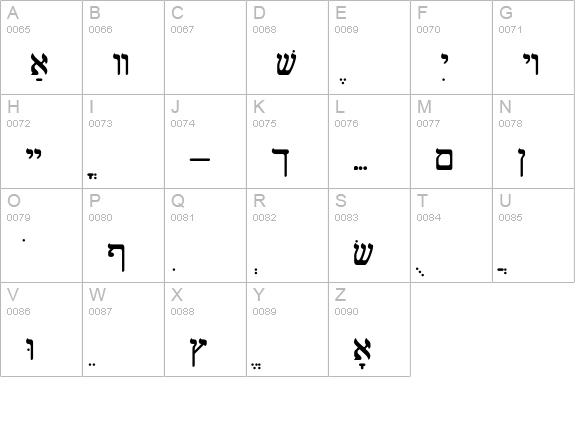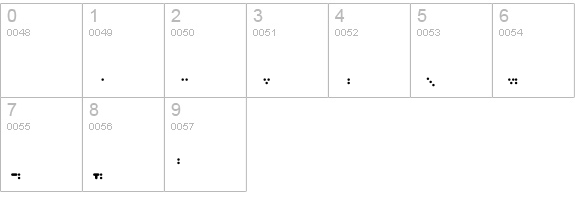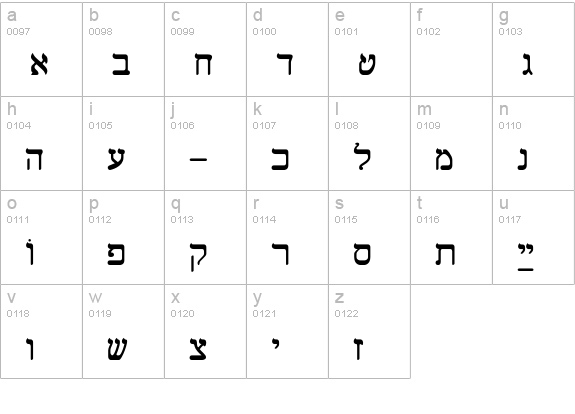
ShalomOldStyle Font Details
ShalomOldStyle is a breathtakingly beautiful font that exudes elegance and sophistication. With its timeless appeal and classic letterforms, this font is perfect for adding a touch of vintage charm to any project. Whether you're designing a logo, creating a wedding invitation, or crafting a vintage-inspired poster, ShalomOldStyle will elevate your design to new heights. What makes ShalomOldStyle even more incredible is that it is absolutely free. Yes, you read that right! This fantastic font is freely available to download at FontsMarket.com. Now you can add a touch of old-world charm to your designs without breaking the bank. The attention to detail in ShalomOldStyle is truly remarkable. Each letter is meticulously crafted, with intricate strokes and graceful curves that capture the essence of traditional typography. The result is a font that is both visually stunning and incredibly versatile. Whether you're going for a retro vibe or simply want to add a touch of elegance to your design, ShalomOldStyle is the perfect choice. Its timeless appeal and classic aesthetic make it a go-to font for designers and creatives alike. So why wait? Visit FontsMarket.com today and download ShalomOldStyle for free. Let this exquisite font inspire your creativity and bring a touch of old-world charm to your next design project.